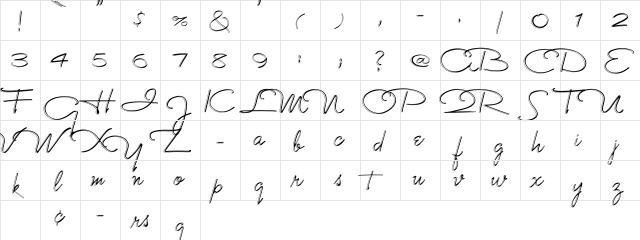
Monika 'Engraved' Italic
Design Context for Monika 'Engraved' Typeface
Monika 'Engraved' brings ornamental detail and strong personality to headlines and identities, where visual impact matters more than quiet functionality. Its italic angle brings a sense of urgency and motion to the letterforms.
Font Pairing: Pair with a clean neutral sans-serif for body copy to let Monika 'Engraved''s character lead without overwhelming the composition.
Pro Tip: Treat Monika 'Engraved' as the centrepiece of your typographic hierarchy. One strong heading set in a decorative face can carry an entire layout.